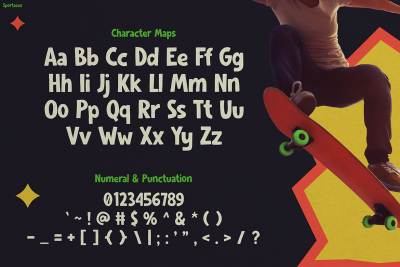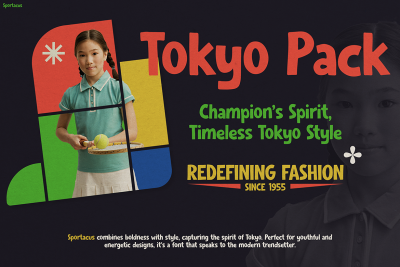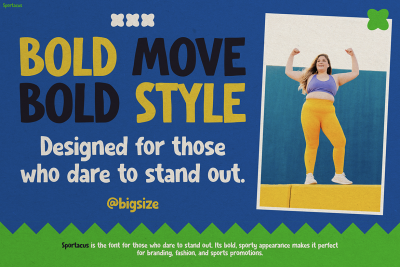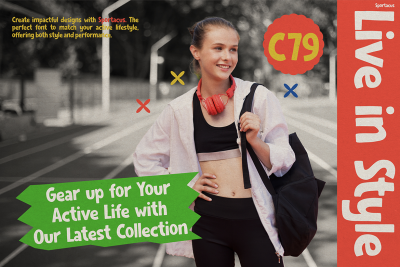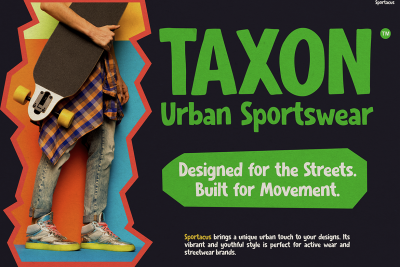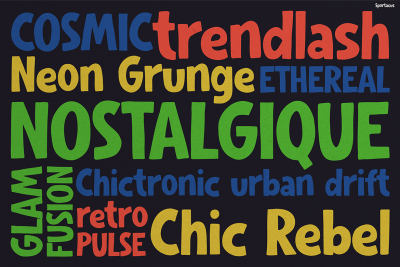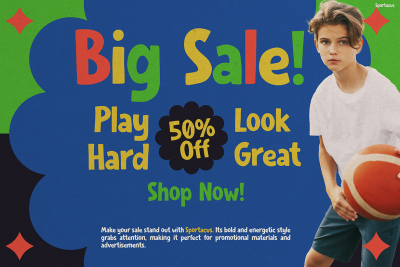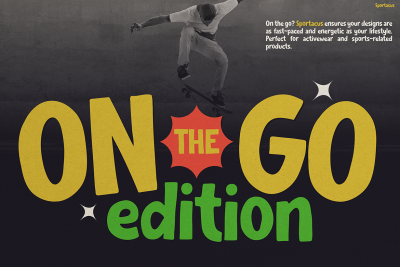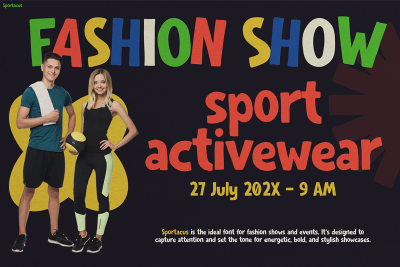
Instagram Font Sportacus: Elevate Your Branding with Bold Aesthetics
Instagram Font Sportacus is a dynamic and visually striking typeface designed to capture attention instantly. With its bold, athletic-inspired design, this font is perfect for those who want to exude strength, energy, and modernity in their visuals. The sharp edges, smooth curves, and powerful stance of each letter create a perfect blend of professionalism and creativity. This makes it an ideal choice for sports brands, fitness influencers, gaming channels, and modern advertising materials. Whether you’re crafting a social media campaign or designing promotional merchandise, Sportacus ensures your message is seen and remembered.
Unique Features and Aesthetic Appeal
What sets Instagram Font Sportacus apart is its ability to combine sleek, contemporary styling with an unmistakable sporty edge. The fontโs structure reflects movement, agility, and performance, making it a favorite among brands and designers looking to make a bold statement. Additionally, the well-balanced proportions and versatile letterforms make it suitable for both digital and print media. Whether you need an eye-catching logo, social media graphics, or promotional content, Sportacus ensures maximum visual impact with minimal effort.
The fontโs legibility is another strong advantage. Unlike overly stylized typefaces that sacrifice readability for design, Instagram Font Sportacus maintains a perfect harmony between aesthetics and clarity. This makes it highly effective for social media posts, banners, and merchandise designs that demand instant recognition and engagement. Furthermore, its versatility allows it to seamlessly adapt to various branding needs, making it a must-have for designers and marketers alike.
Who Can Benefit from Instagram Font Sportacus?
Instagram Font Sportacus is ideal for businesses and individuals looking to create a strong visual identity. It is particularly well-suited for:
- Sports brands โ Perfect for team logos, event promotions, and merchandise.
- Fitness influencers โ Enhance your workout plans, Instagram stories, and motivational content.
- Gaming and eSports channels โ Stand out with a modern, high-energy aesthetic.
- Streetwear and fashion brands โ Add an urban, trendy touch to your branding.
- Marketing professionals โ Use it in advertisements, posters, and online campaigns to create bold messaging.
- YouTubers and streamers โ Strengthen channel branding and video thumbnails for better viewer engagement.
Take Your Branding to the Next Level
If you want to make a lasting impression, Sportacus is the perfect choice. Its versatility, stylish design, and strong visual presence ensure that your brand stands out in the competitive digital space. Whether you’re designing for social media, merchandise, or advertising, this font empowers you to communicate with confidence and style. Don’t miss the chance to upgrade your graphics with this powerful typeface. Download Instagram Font Sportacus today and bring your creative vision to life!